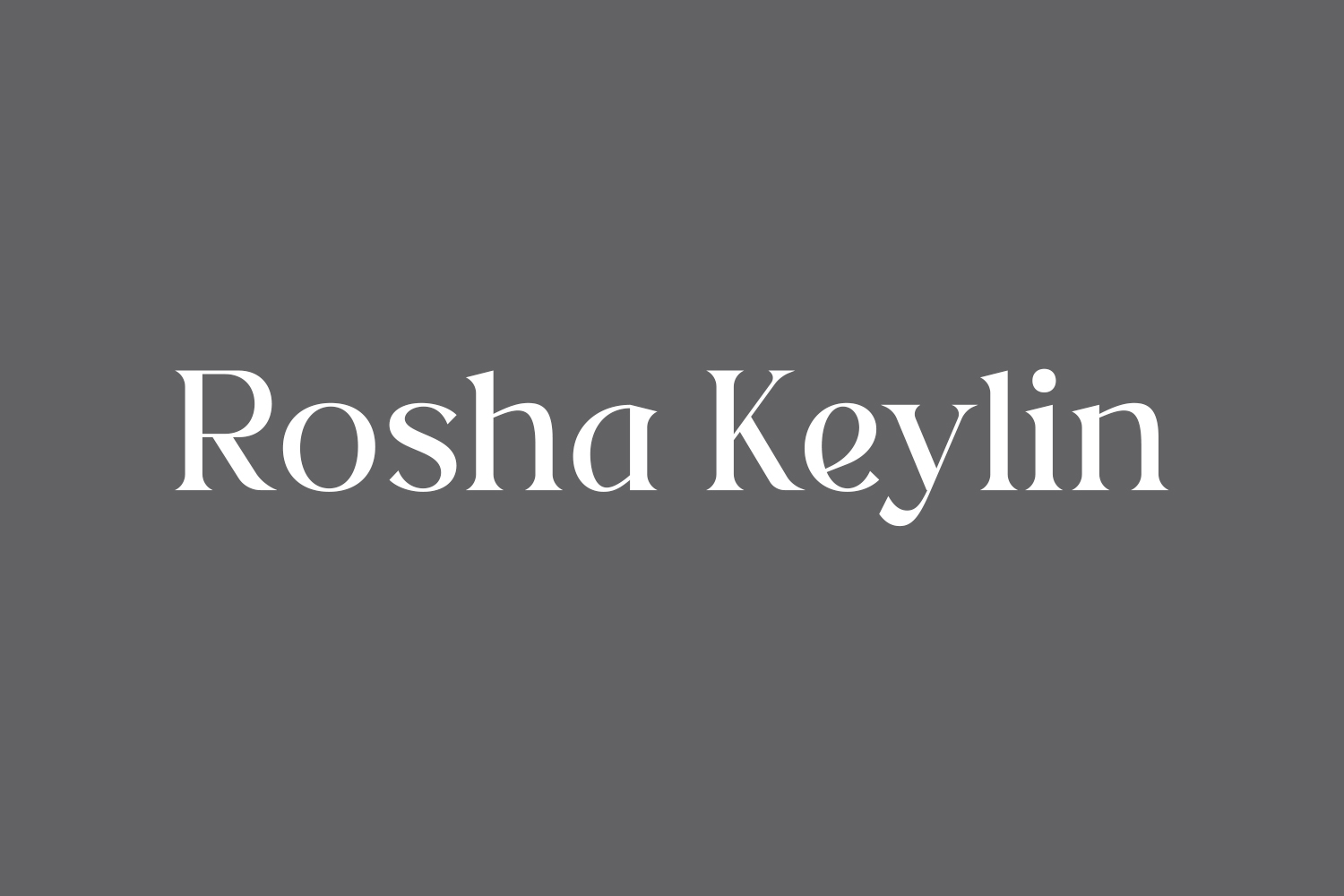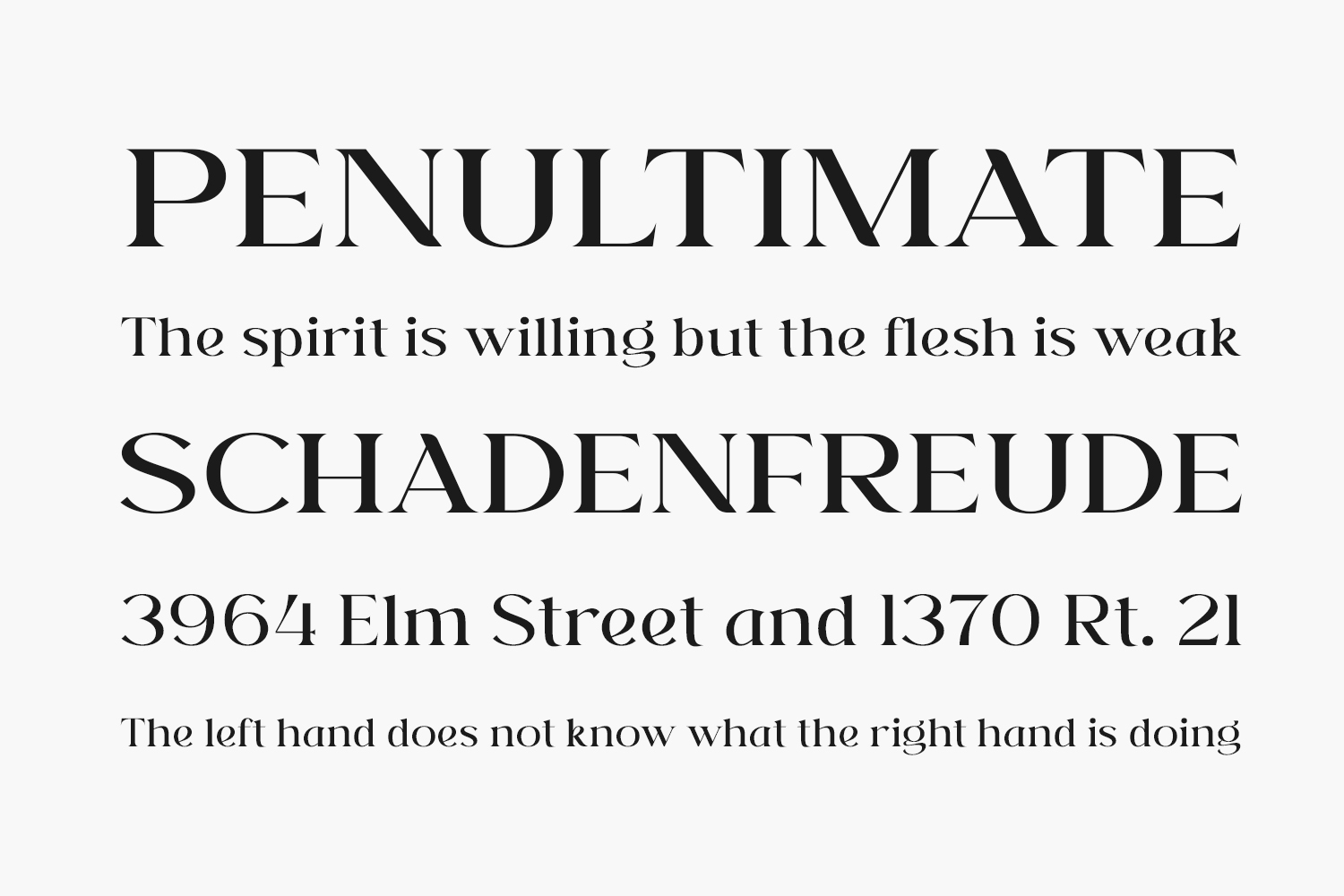
Rosha Keylin Free Font is a stylish and elegant serif font. Rosha Keylin Free Font is free for personal use only. Please purchase the full version for commercial use.